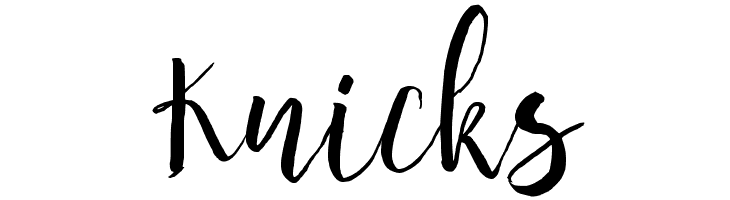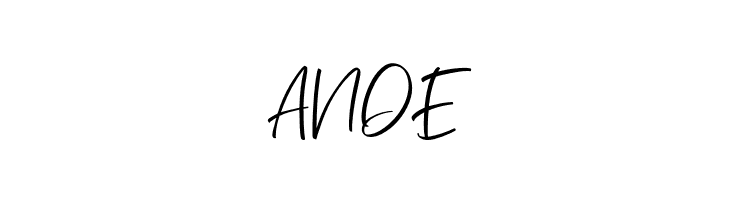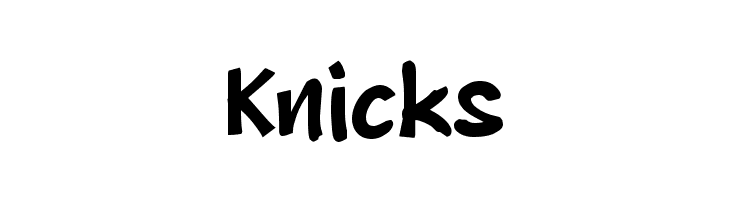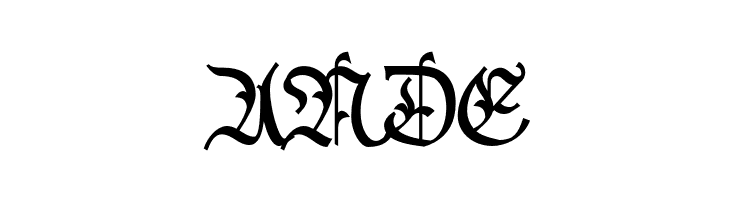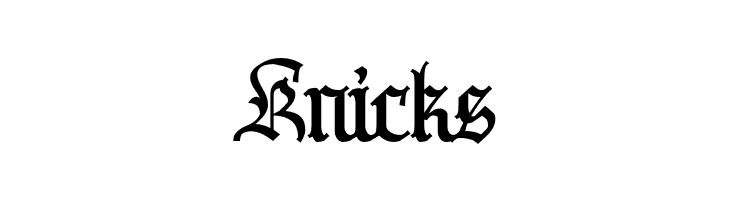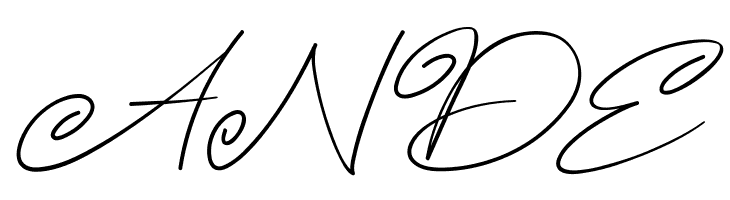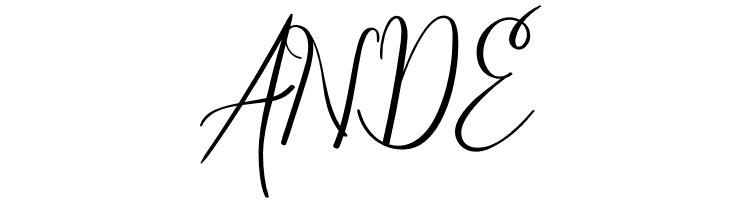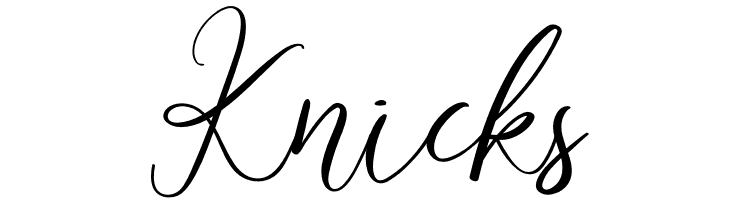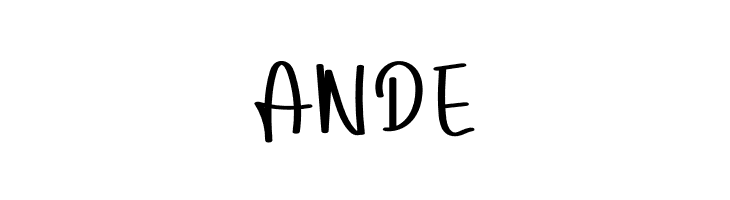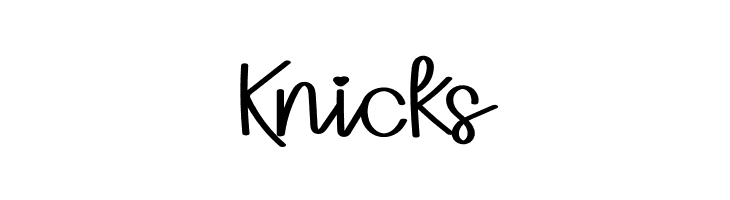
( Fonts by Letterara - Thomas Aradea - Personal-use only. For commercial use please contact owner. ) A lively, expressive handwritten font with fluid strokes and a whimsical feel. Download 31 Downloads@WebFont
( Fonts by NanaNissa - Personal-use only. For commercial use please contact owner. ) A flowing, elegant script font with a handwritten style. Download 36 Downloads@WebFont
( Fonts by Haksen Studio - Sarwo Edhi Prayitno - Personal-use only. For commercial use please contact owner. ) An elegant and flowing script font with graceful curves and sophisticated flair. Download 34 Downloads@WebFont
( Fonts by Kurnia Setyadi - Personal-use only. For commercial use please contact owner. ) A bold, hand-drawn marker-style font with a casual and energetic feel. Download 142 Downloads@WebFont
( Fonts by Colllab Studio - Personal-use only. For commercial use please contact owner. ) A hand-drawn, brushstroke font with a casual and artistic style. Download 32 Downloads@WebFont
( Fonts by Surya Creatype - Surya Iswandi - Personal-use only. For commercial use please contact owner. ) A bold, expressive script font with a hand-drawn, artistic style. Download 34 Downloads@WebFont
( e-angelova.daportfolio.com/ ) A whimsical and ornate font with curly, decorative letterforms. Download 1442 Downloads@WebFont
( Fonts by Thirtypath - Personal-use only. For commercial use please contact owner. ) A bold, expressive script font with dynamic brush strokes. Download 21 Downloads@WebFont
( Fonts by Balpirick Studio - Personal-use only. For commercial use please contact owner. ) A playful, bold font with rounded strokes and a hand-drawn feel. Download 292 Downloads@WebFont
( Fonts by Manfred Klein. Free for private and charity use. Free for commercial with donation to organizations ) Ornate dingbat font with angelic and demonic themed illustrations. Download 169 Downloads@WebFont
( Fonts by LetterFreshStudio - Rizki Andika - Personal-use only. For commercial use please contact owner. ) A sophisticated script font with flowing, connected strokes and high contrast. Download 34 Downloads@WebFont
( Fonts by LetterFreshStudio - Rizki Andika - Personal-use only. For commercial use please contact owner. ) A classic, elegant script font with flowing cursive letters and ornate details. Download 24 Downloads@WebFont
( Fonts by billyargel.blogspot.com - Billy Argel ) An elegant and dramatic script font with intricate swashes and flourishes. Download 1464 Downloads@WebFont
( Fonts by StringLabs - stringlabscreative.com - Personal-use only. For commercial use please contact owner. ) A modern, handwritten font with fluid, expressive strokes. Download 50 Downloads@WebFont
( Fonts by StringLabs - stringlabscreative.com - Personal-use only. For commercial use please contact owner. ) A lively and expressive handwritten font with dynamic strokes. Download 30 Downloads@WebFont
( Fonts by Letterara - Thomas Aradea - Personal-use only. For commercial use please contact owner. ) A charming and elegant script font with flowing, interconnected letters. Download 30 Downloads@WebFont
( Fonts by Skiiller Studio - Personal-use only. For commercial use please contact owner. ) A playful and elegant script font with a handwritten touch. Download 30 Downloads@WebFont
( Fonts by Edric Studio - Personal-use only. For commercial use please contact owner. ) A lively, flowing script font with elegant, connected strokes. Download 49 Downloads@WebFont
( Fonts by Edric Studio - Personal-use only. For commercial use please contact owner. ) A bold, brush-style font with dynamic, hand-drawn strokes. Download 101 Downloads@WebFont
( Fonts by Geronimo Fonts - Personal-use only. For commercial use please contact owner. ) A playful, informal handwritten font with rounded edges and consistent strokes. Download 939 Downloads@WebFont
( Fonts by Andrew McCluskey - nalgames.com. Personal-use only. For commercial use please contact owner. ) A bold, angular font with a futuristic and industrial design. Download 435 Downloads@WebFont
( Fonts by Omaikraf Studio - Omaikraf - Personal-use only. For commercial use please contact owner. ) A dramatic, calligraphic font with sharp, angular strokes and expressive details. Download 90 Downloads@WebFont
( Fonts by Syaf Rizal - www.creativefabrica.com/ref/53/ - Personal-use only. For commercial use please contact owner. ) A graceful script font with flowing, cursive strokes and elegant curves. Download 1496 Downloads@WebFont
( Fonts by Khurasan - Syaf Rizal - Personal-use only. For commercial use please contact owner. ) A dynamic and fluid script font with elegant, flowing letterforms. Download 26 Downloads@WebFont
( Fonts by Madatype Studio - Andri Ardianto - Personal-use only. For commercial use please contact owner. ) An elegant and flowing script font with sophisticated, cursive letterforms. Download 52 Downloads@WebFont
( Fonts by wep - Wahyu Eka Prasetya - Personal-use only. For commercial use please contact owner. ) An ornate Blackletter font with intricate, gothic-inspired letterforms. Download 137 Downloads@WebFont